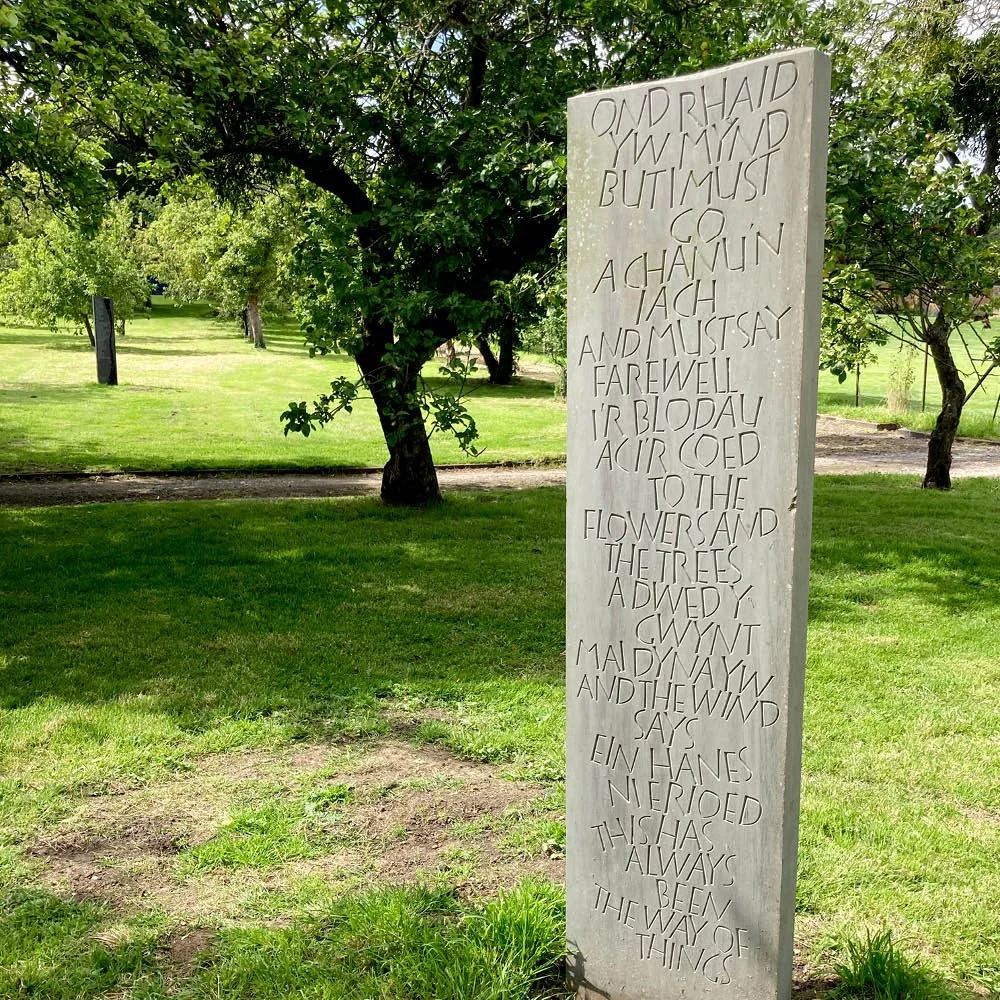
‘Ond rhaid yw mynd…’ by Charles Smith
Dunhouse Fine Blue Sandstone
‘Ond rhaid yw mynd…’
But I must go, and must say farewell
To the flowers and the trees
And the wind says
This has always been the way of things.
The inscription is an extract from the poem ‘The River’ by William Jones, translated from the Welsh by Eileen Walker.
“The words paraphrase beautifully and gently that we must all say goodbye to that which we know and love. I have chosen to carve the Welsh and English alternately for visual interest. The movement in the lettering is suggestive of the wind and river, but is also there for its own sake.”